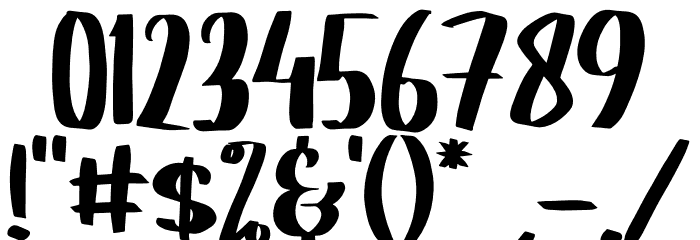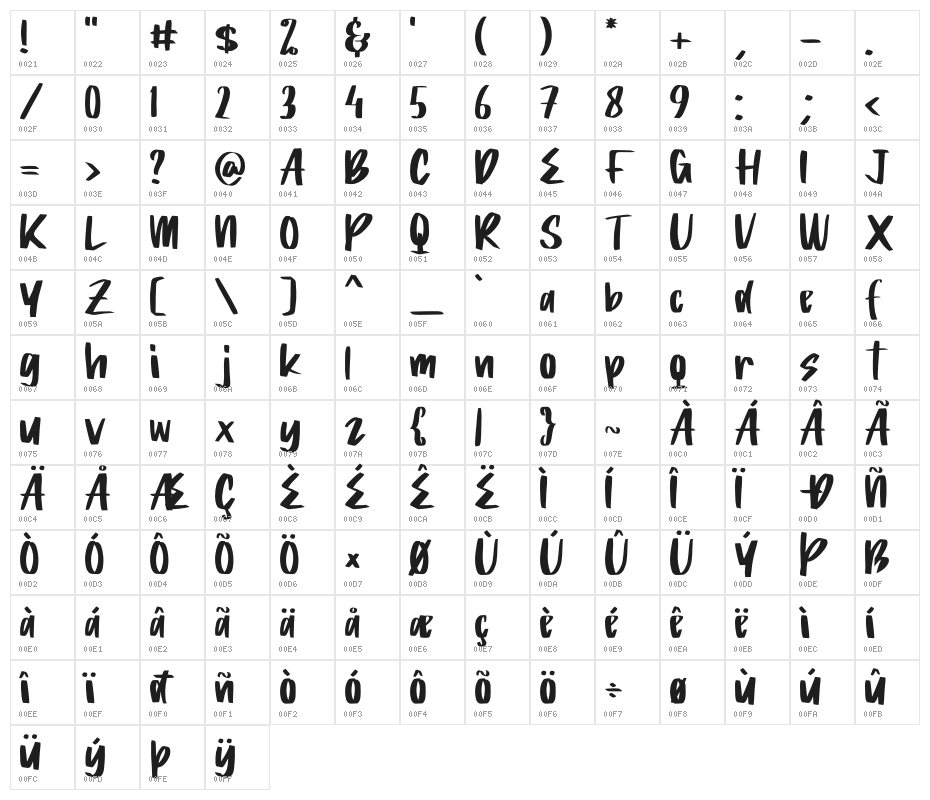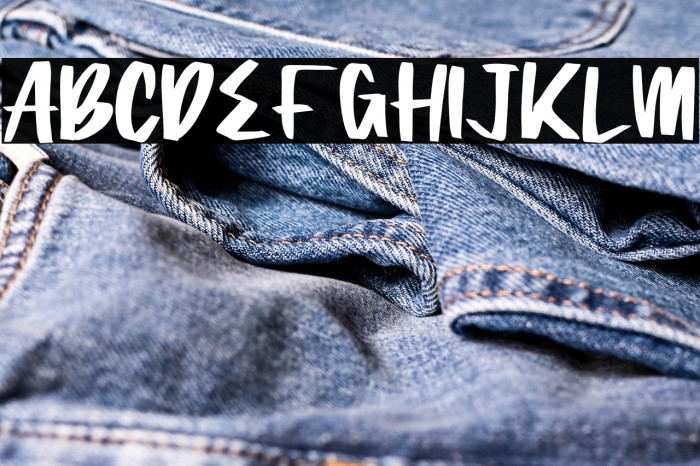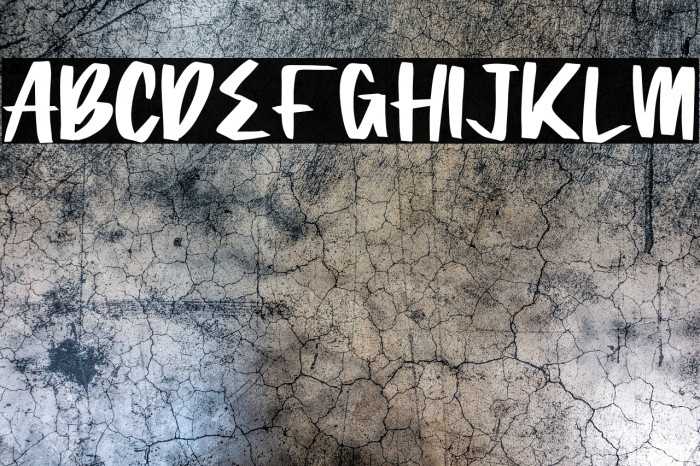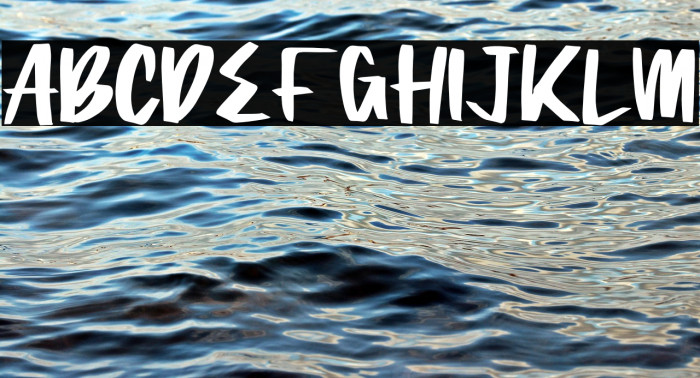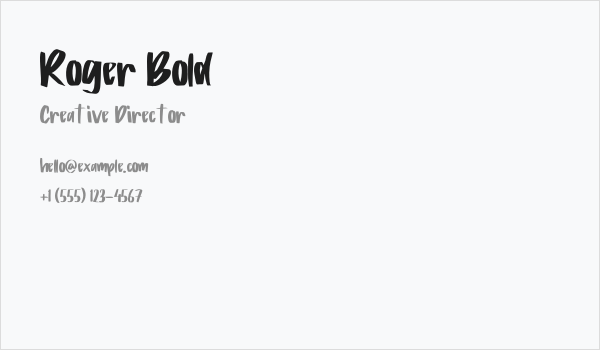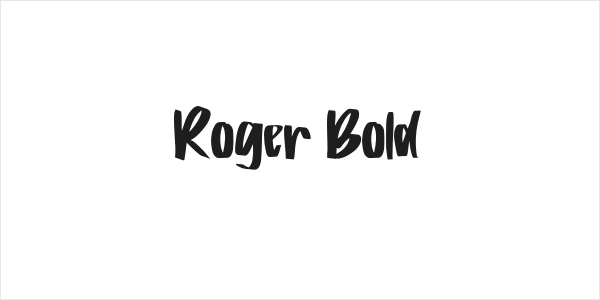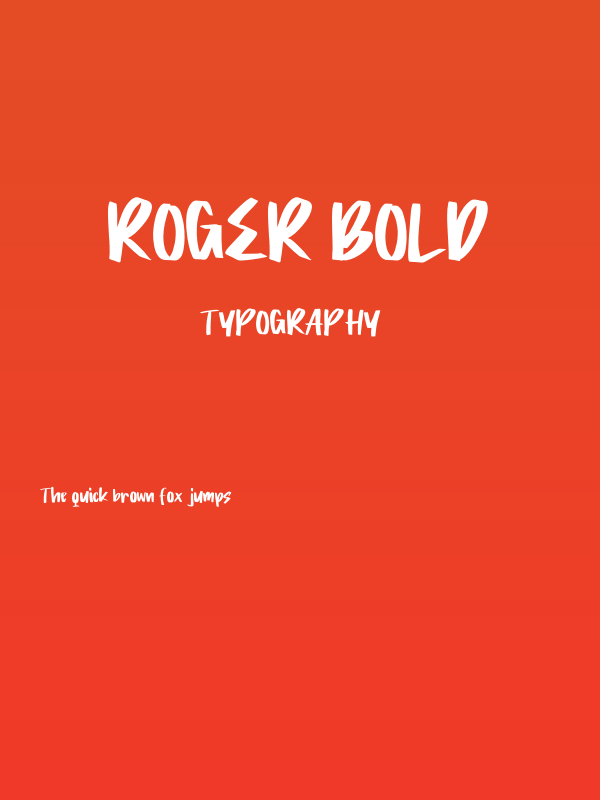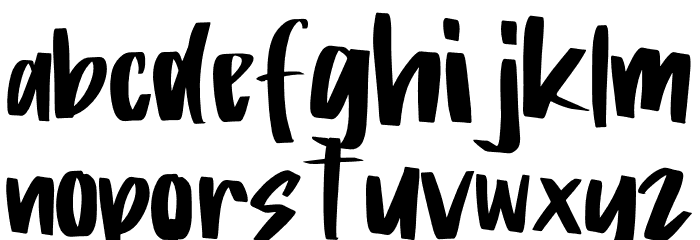
Roger Bold Font
Roger Bold Description
This bold and expressive font features a handwritten style with a playful and energetic vibe. The characters are thick and slightly irregular, giving them a dynamic and informal appearance. The uppercase letters are bold and commanding, while the lowercase letters maintain a consistent flow with a touch of whimsy. Numbers are equally bold, ensuring visibility and impact. Special characters are creatively integrated, maintaining the overall lively aesthetic. This font is perfect for projects that require a personal touch and a sense of creativity.
| Proposed Projects | Ideal for posters, branding, social media graphics, and creative projects that require a personal and dynamic touch. |